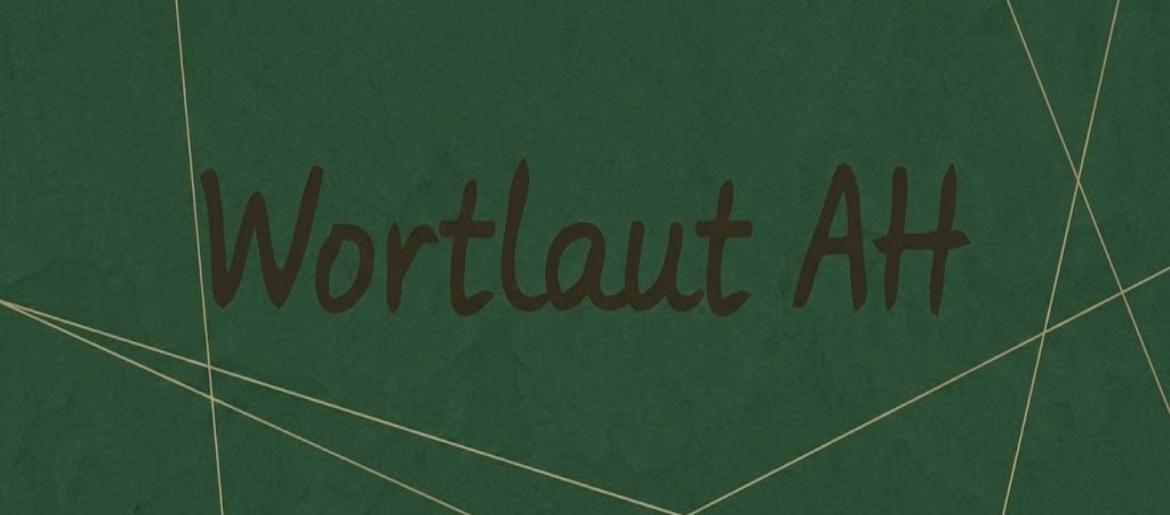
Wortlaut AH Font
Wortlaut AH Typeface by Fontgrube AH occupies a rare and useful niche: a handwritten font that behaves. Its printed hand-lettered characters are modest and precise, never tipping into flamboyance or calligraphic excess. That discipline makes it genuinely usable for extended passages — think handwritten letters inserted into printed novels, diary-style layouts, or annotated grocery lists given typographic polish. Three weights (Regular, Medium, Bold) add real versatility. Wide Western and Eastern European language support covers 92 languages, excluding Greek and Cyrillic. Free for personal and commercial use.